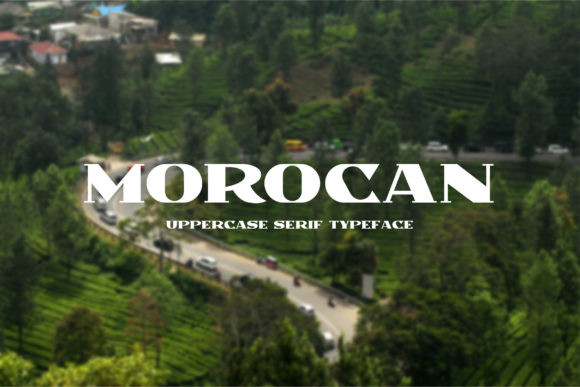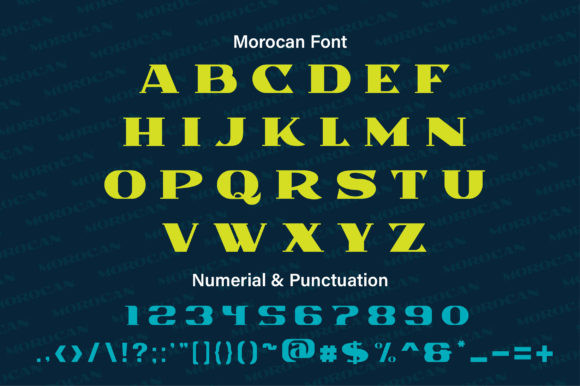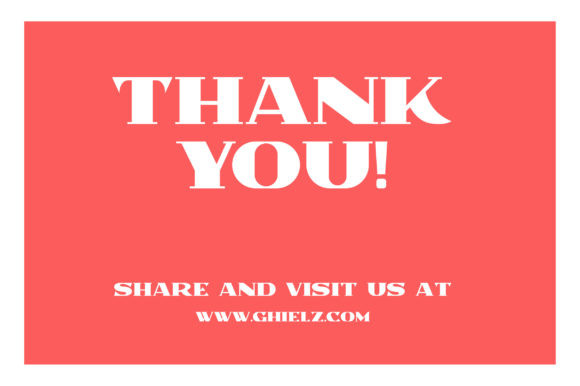
Morocan Font
Morocan is a strong and elegant serif font that will deliver any message with confidence and style. Ignite your creativity with this fancy serif font!